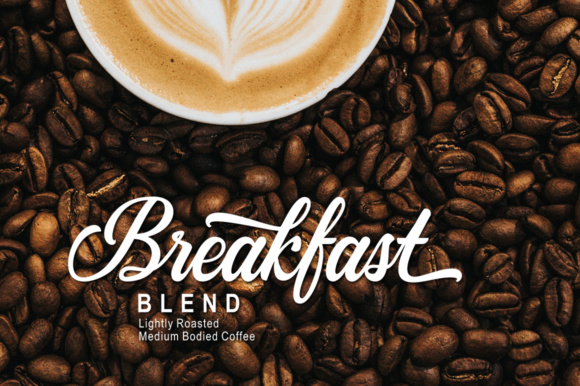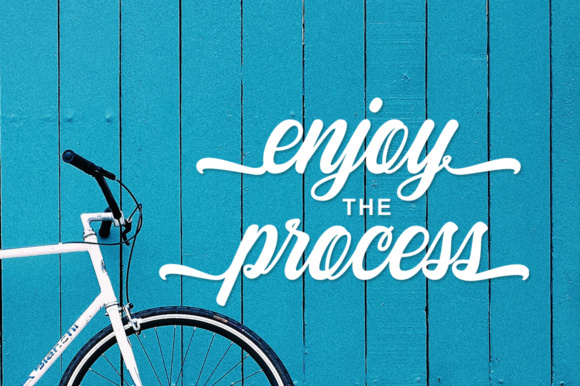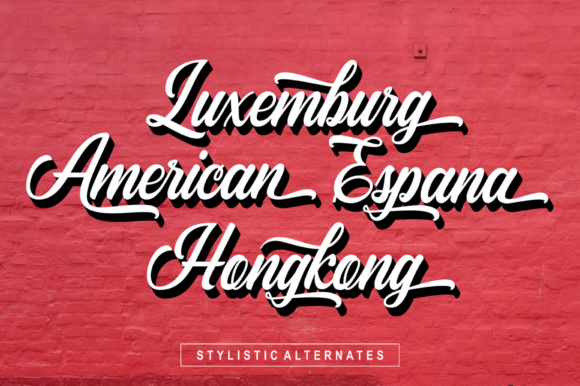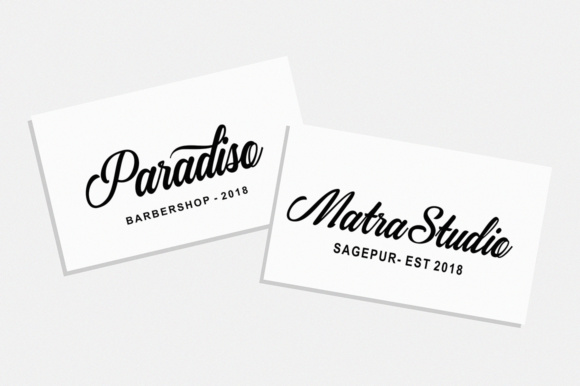
About Aurisha Script Font
Aurisha – Handwritten Font is an brush script font based on the expression of real handwriting, lets you transform type into an exciting and beautiful piece of work. Hand-lettered look adds a real human touch to things and comes along with a lot of loving details.
Aurisha- Handwritten Font has lots of alternates that gives you possibility to build your text almost like handwriting with all the charming imperfections and variations that a real handwriting has. Aurisha will work perfectly for fashion, e-commerce brands, trend blogs, wedding boutiques or any business that wants to appear upscale and chic.